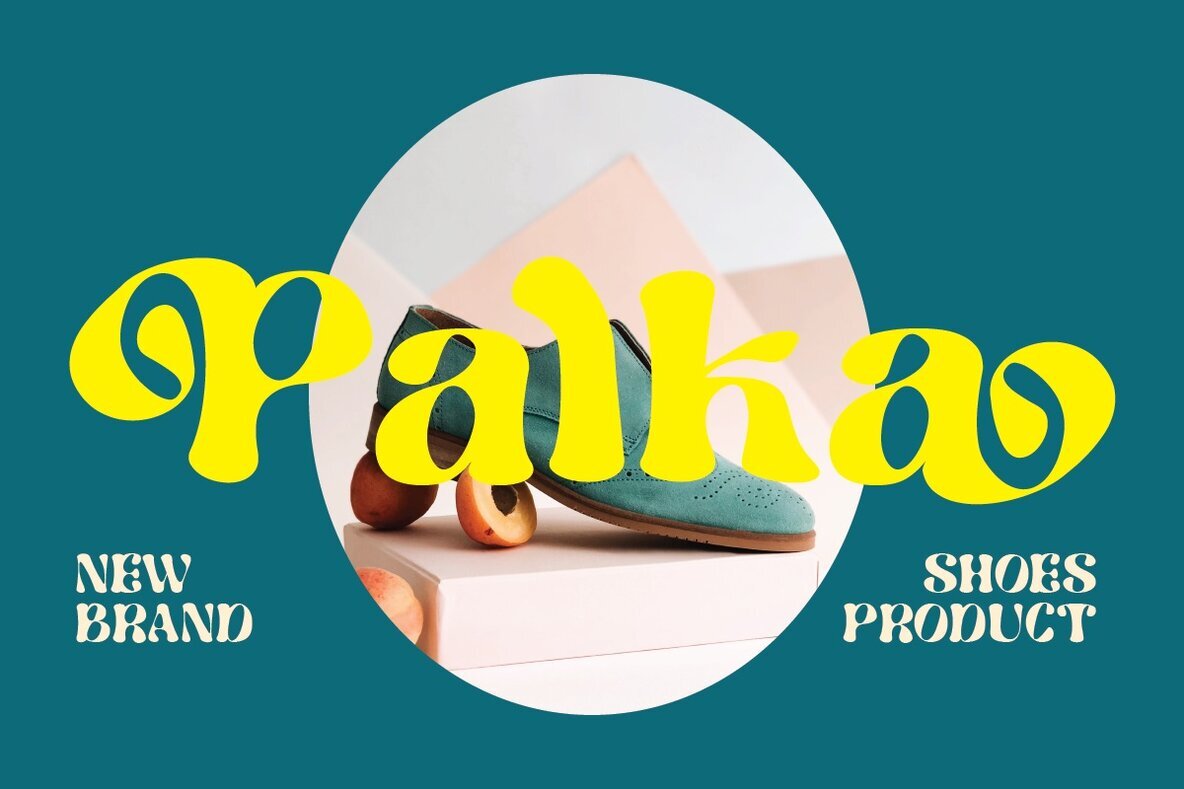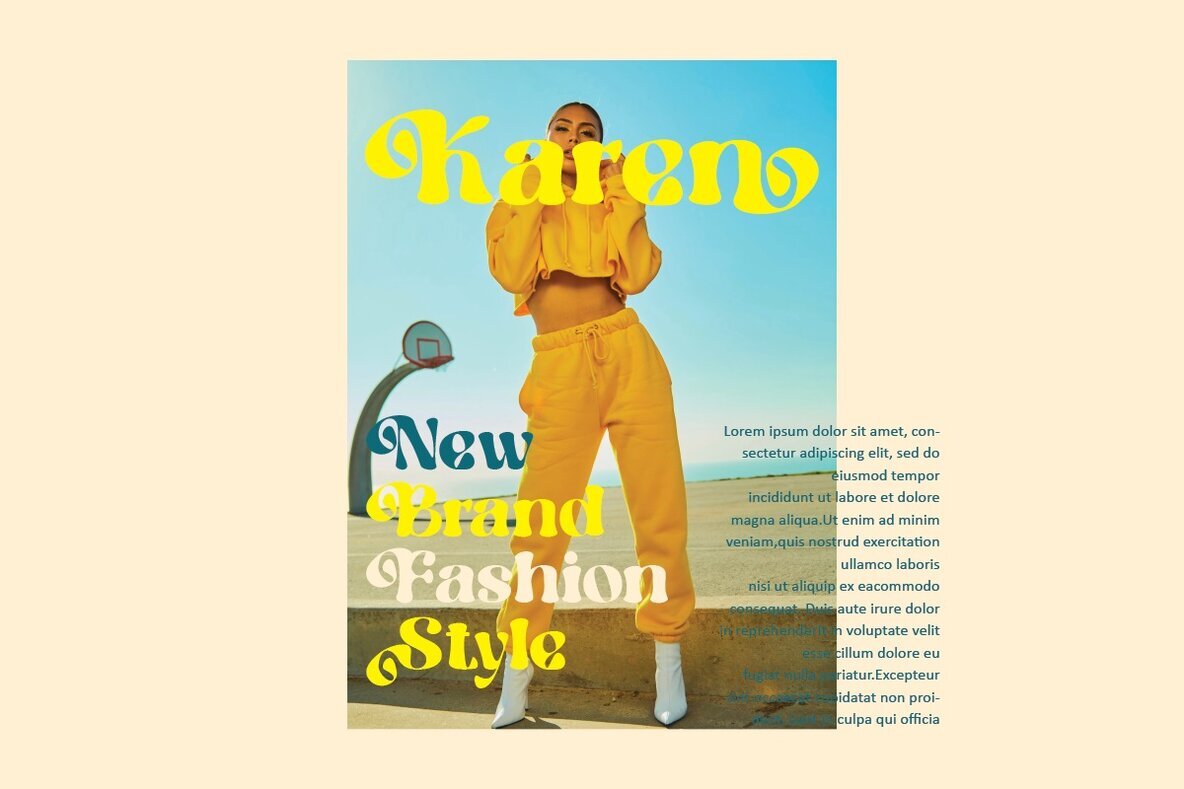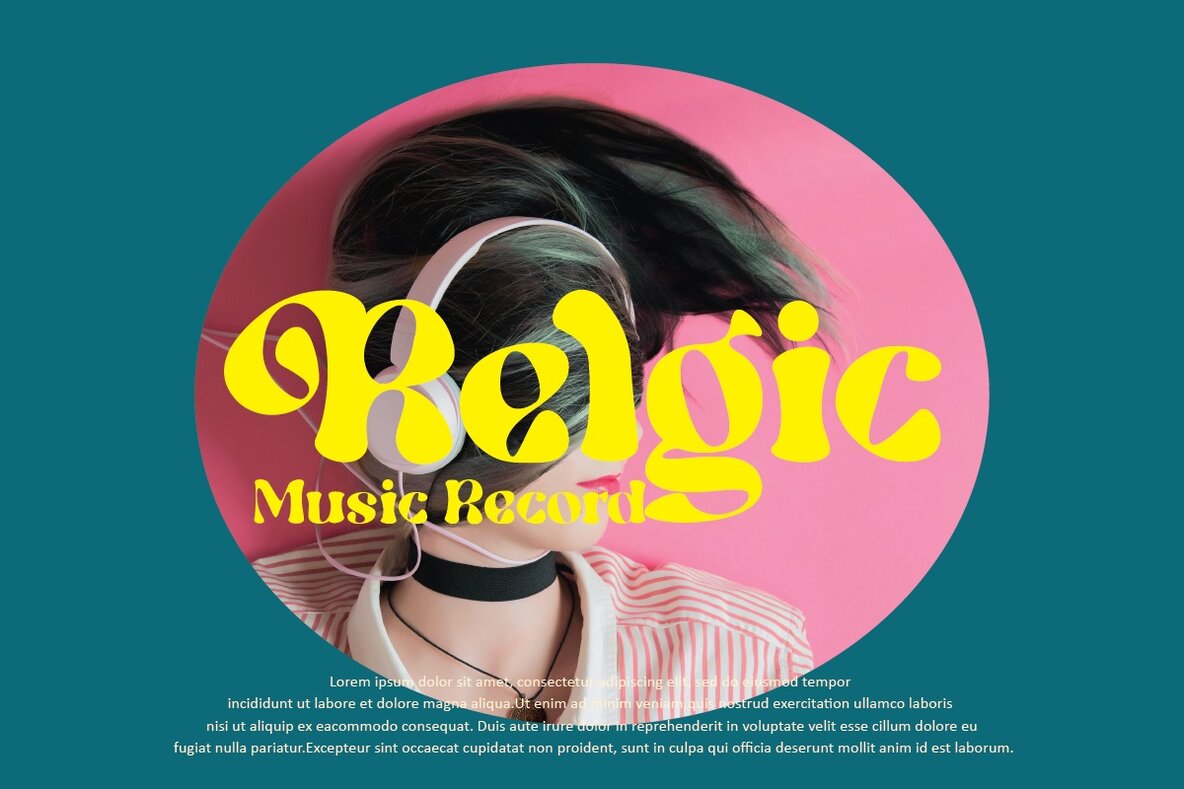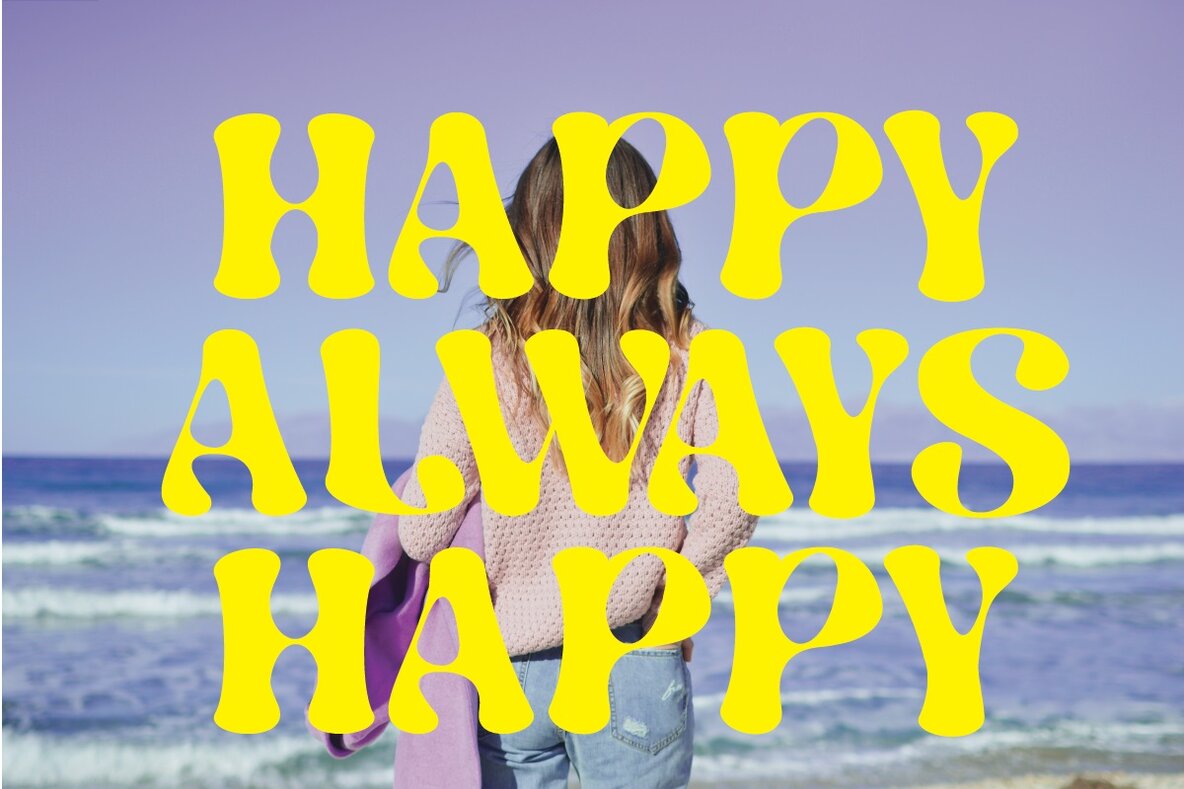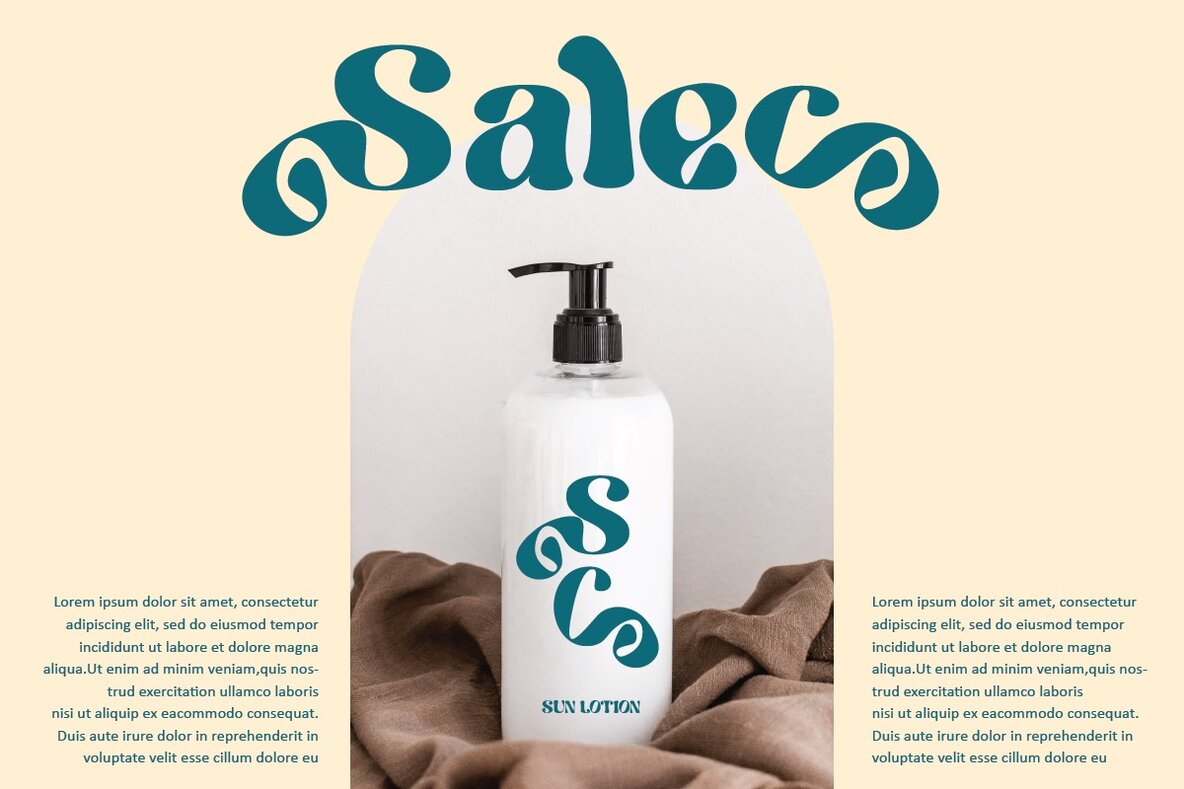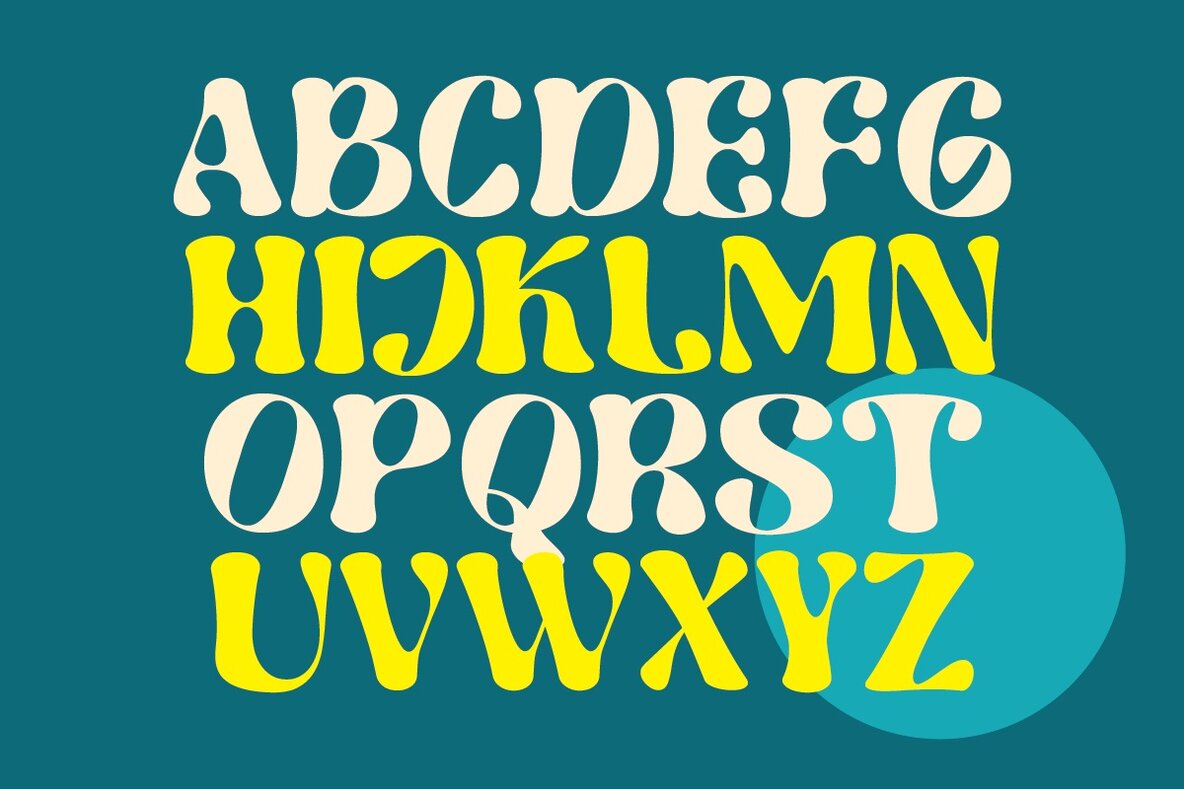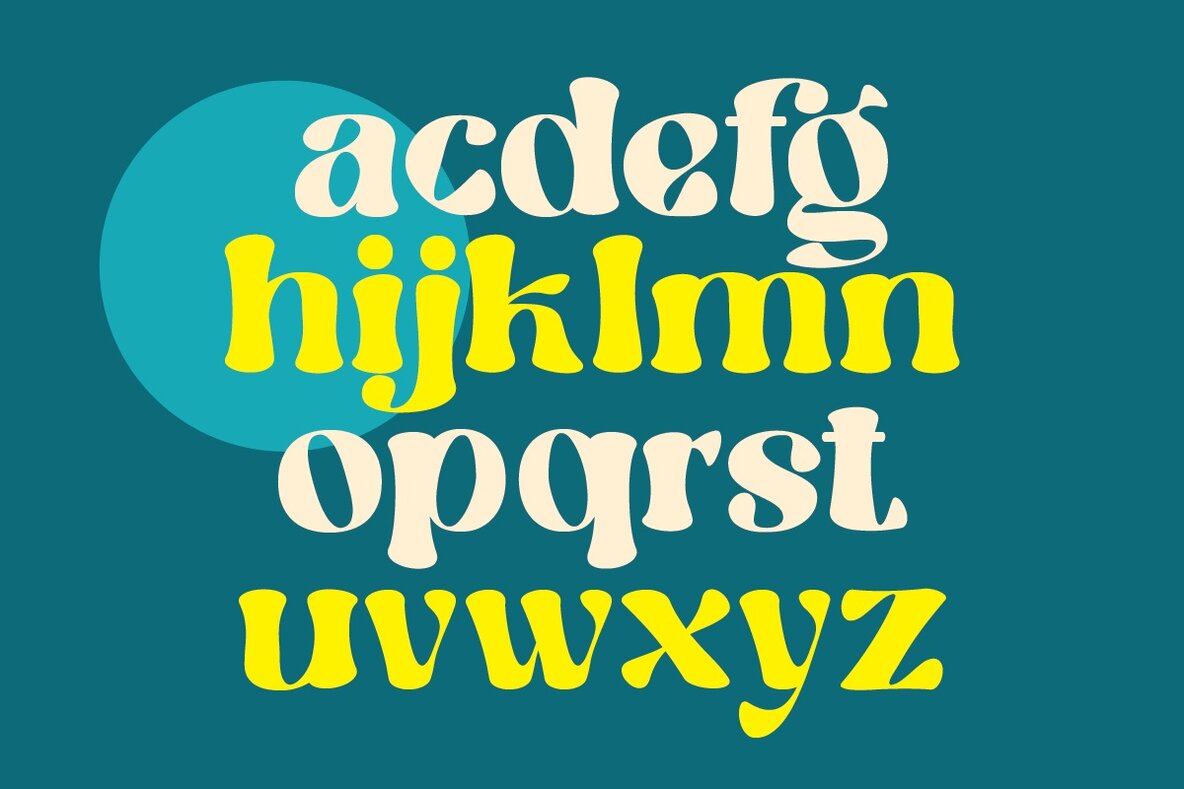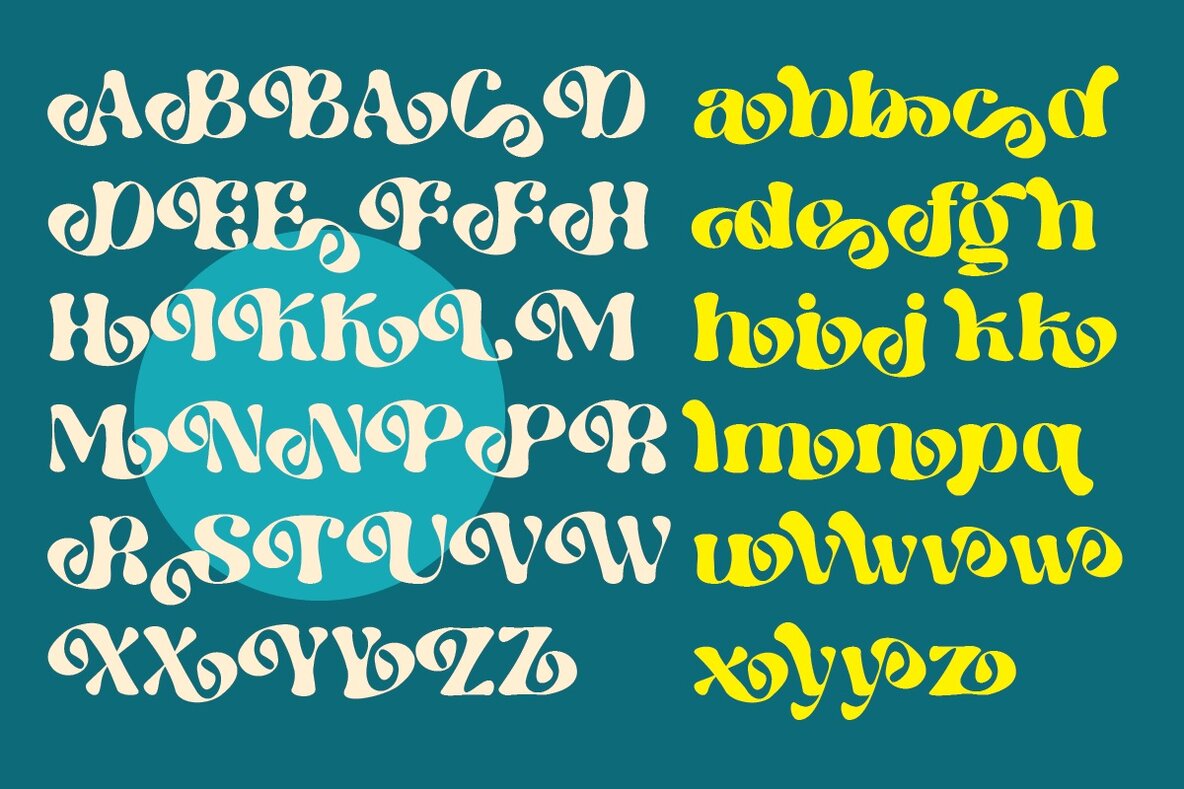
Disley Font
Disley Bold
Disley Grooy is not just any old font. It's got some pretty special glyphs and ornaments that will spice up your designs with an international flair!
This versatile typeface works great in large or small sizes, making it perfect for anything from logos to editorial projects.
Lowercase and Uppercase
Alternate